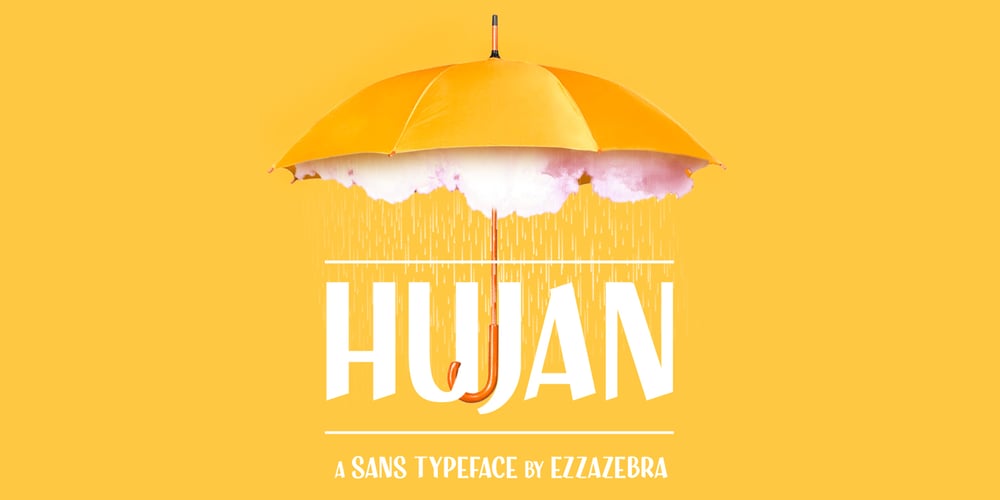
Hujan
Hujan font
Hujan Font Family was designed by Adhreza Brahma and published by Ezzazebra. Hujan contains 2 styles and family package options. A sans-serif font that I created when long raining in my city. The shape is clean with a dynamic semi-bold stroke. It’s suitable for a minimalistic, “less is more” design and useful for display and larger body text.